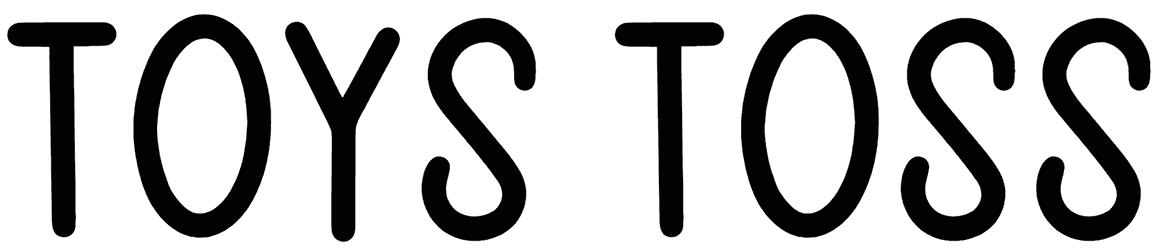
Toys Toss Font
To be honest, even at first glance, when the audience sees your artwork that is designed with the help of a delicate cartoon font such as Toys Toss, they will immediately fall in love with it.
This neat font comes with rounded characters and brings a sense of dynamic, vivacity, drama, or comfort to your editorial projects. Generally, it can be perfectly matched with a wide set of graphic content like illustrations, packaging, billboards, or social media posts.